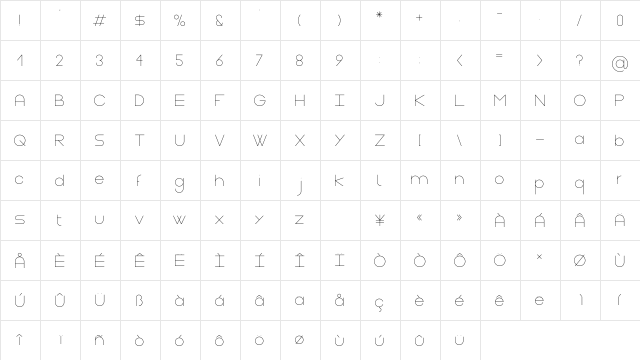
Gasalt Thin
Design Context for Gasalt Typeface
Gasalt takes a measured approach to typography — its balanced proportions and neutral character make it a reliable workhorse for both digital and print work. Its slender proportions lend an understated elegance to any composition.